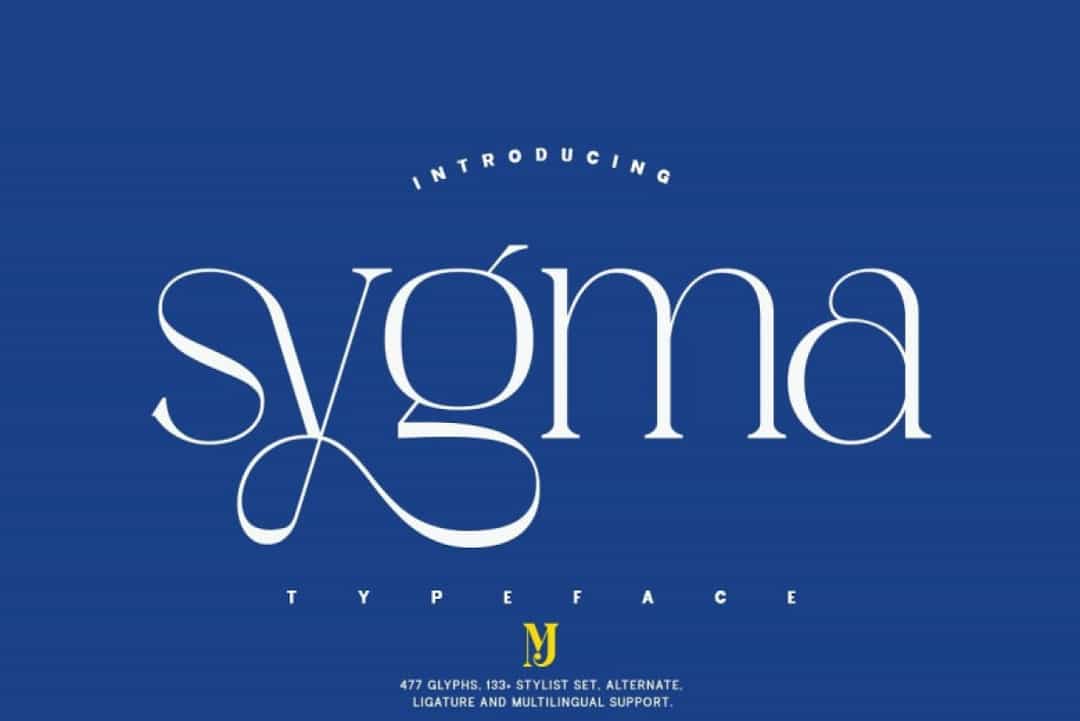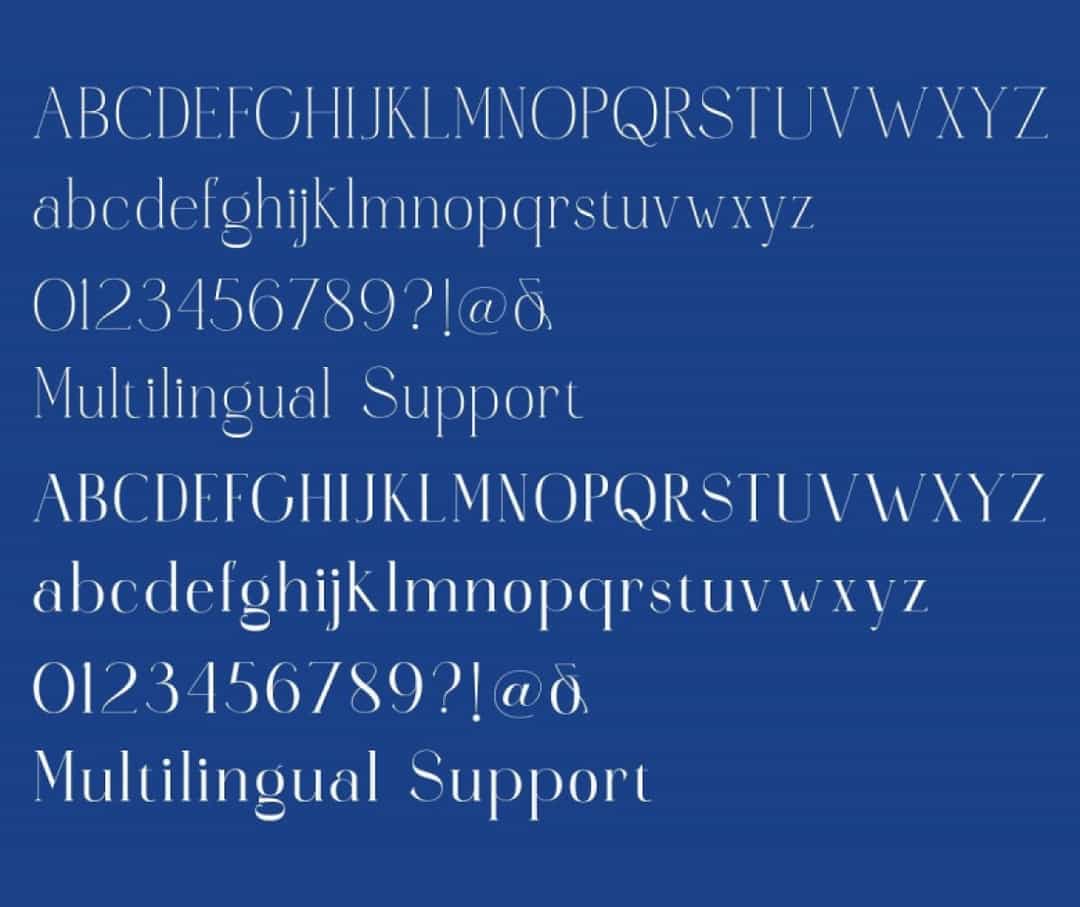
Sygma is an elegant serif font designed to add the perfect touch of class and elegance to any project, guaranteed to leave an impactful impression with anyone who comes into contact with it. Boasting crisp lines and sophisticated features, Sygma makes an excellent choice for projects such as branding, poster designing and advertisements.